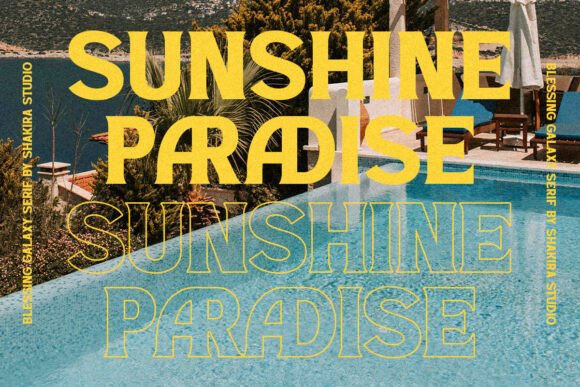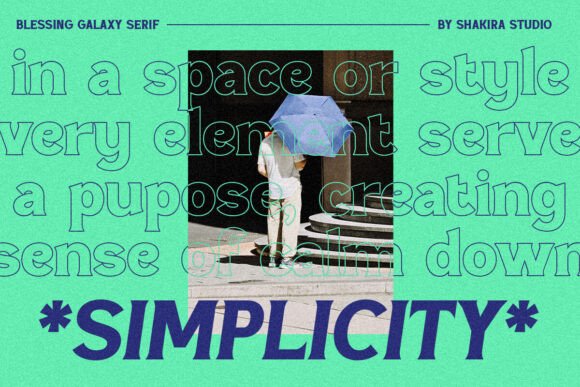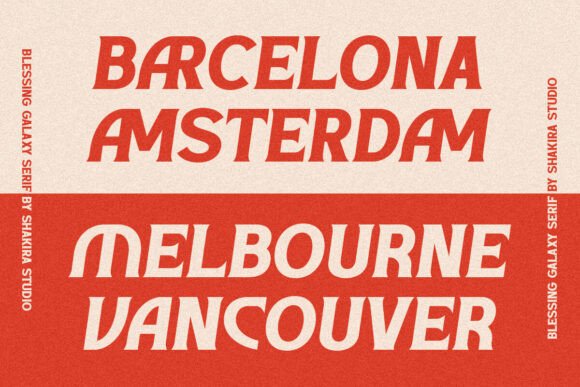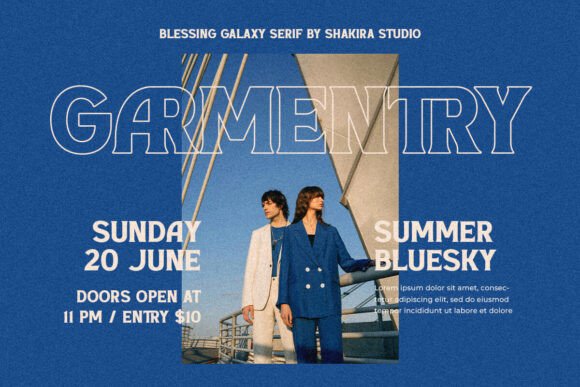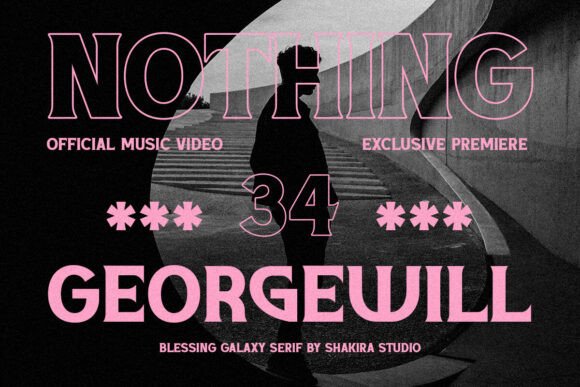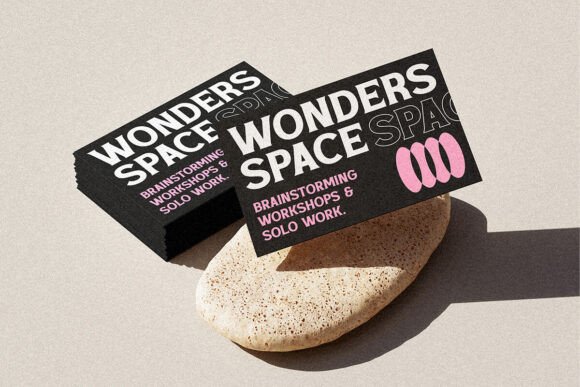
Unlocking the Cosmos of Creativity: Introducing Blessing Galaxy Font
Enter Blessing Galaxy Font, a bold and vibrant modern serif display font designed to elevate your designs to new heights. With its elegant yet innovative design, this font collection is a treasure trove of creative possibilities, offering Regular, Italic, and Outline variants that will add a touch of stellar beauty to your projects. Whether you’re a seasoned designer or just starting out, Blessing Galaxy Font is a valuable addition to your toolkit, providing endless opportunities for creative expression and visual storytelling.
- Unique Characteristics: Blessing Galaxy Font features a futuristic and neon-inspired design, with intricate details and dynamic curves that give it a distinctive look.
- Font Styles: Blessing Galaxy Font includes a range of font styles, including regular, bold, italic, and bold italic, allowing designers to add depth and variety to their designs.
Blessing Galaxy Font Review
I recently had the chance to work with the Blessing Galaxy Font, and I must say it’s a unique and eye-catching addition to any design project. ✨ The font’s futuristic feel and cosmic-inspired aesthetic make it perfect for sci-fi themed designs, futuristic interfaces, or any project that requires a sense of otherworldliness.
Here are some of the things I like about Blessing Galaxy Font:
- ✨ High level of customization options: The font offers a range of styles and variations, allowing you to tailor it to your specific design needs.
- ✨ Unique and futuristic feel: Blessing Galaxy Font is perfect for designs that require a sense of innovation and cutting-edge technology.
- ✨ Versatile: This font can be used for a wide range of applications, from digital interfaces to print materials.
However, I also encountered some limitations with Blessing Galaxy Font:
- ⚠️ Limited legibility: At smaller font sizes, Blessing Galaxy Font can become difficult to read, which may impact its usability in certain contexts.
- ⚠️ Not suitable for body text: Due to its futuristic feel, Blessing Galaxy Font may not be the best choice for large blocks of body text, where readability is a top priority.
Overall, I think Blessing Galaxy Font is a great addition to any designer’s toolkit, especially for projects that require a sense of futurism and innovation. With some careful consideration of its limitations, this font can be a real showstopper in the right context.
Blessing Galaxy Font is perfect for:
- Galaxy-themed posters and graphics
- Space-inspired logos and branding
- Science fiction-themed designs and illustrations